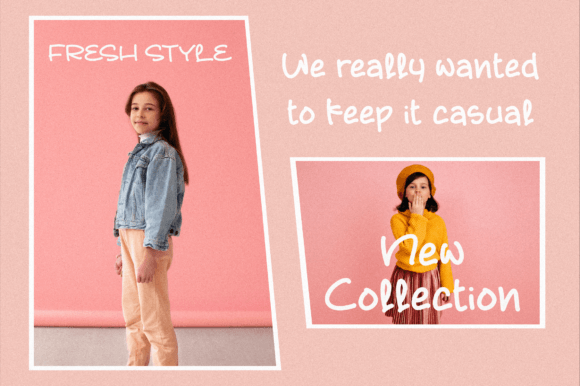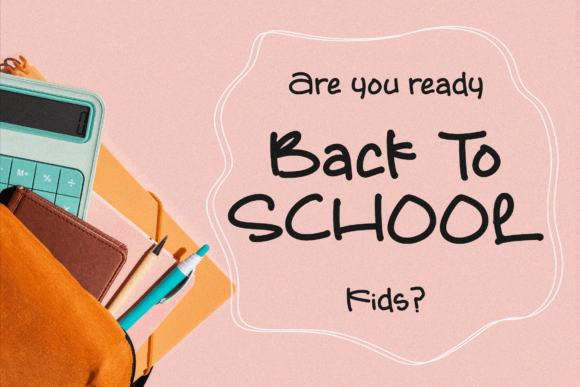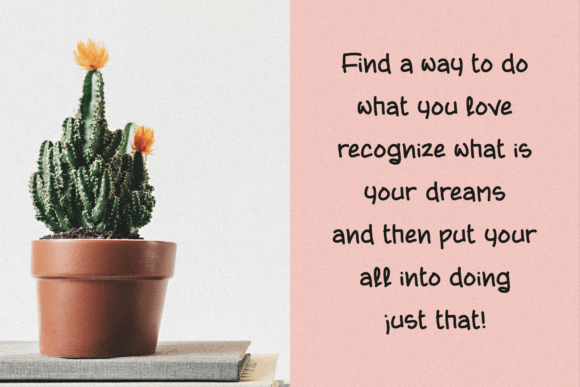
Introduction to Bigertan Cosplay Font
Bigertan Cosplay – Cute Display Font , from Perspectype Studio, suitable for any projects such as: logos, branding projects, homeware designs, product packaging, mugs, quotes, posters, shopping bags, t-shirts, book covers, name card, invitation cards, greeting cards, label, photography, watermark, special events, and all your other lovely projects that need a beautiful script taste.
Bigertan Cosplay – Cute Display Font , from Perspectype Studio, suitable for any projects such as: logos, branding projects, homeware designs, product packaging, mugs, quotes, posters, shopping bags,
Key Features of Bigertan Cosplay Font
Why Choose Bigertan Cosplay Font?
Bigertan Cosplay Font offers exceptional quality and versatility, making it a valuable addition to your design toolkit. Whether you’re creating for personal projects or commercial use, Bigertan Cosplay Font delivers professional results.